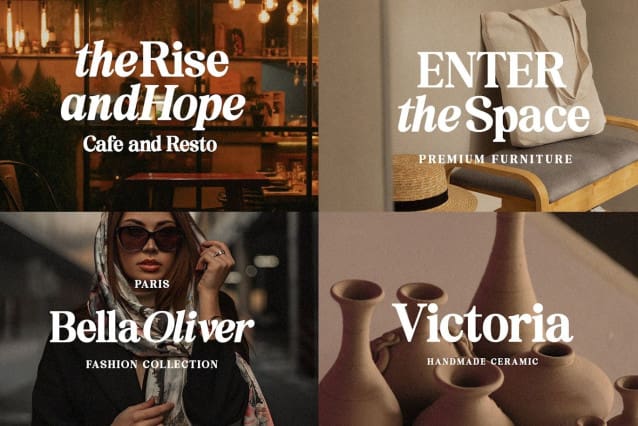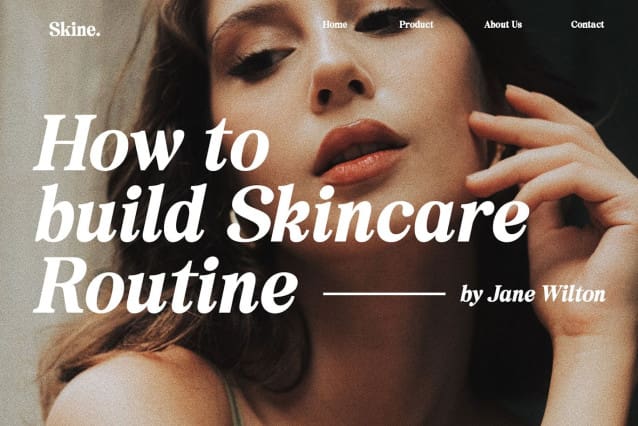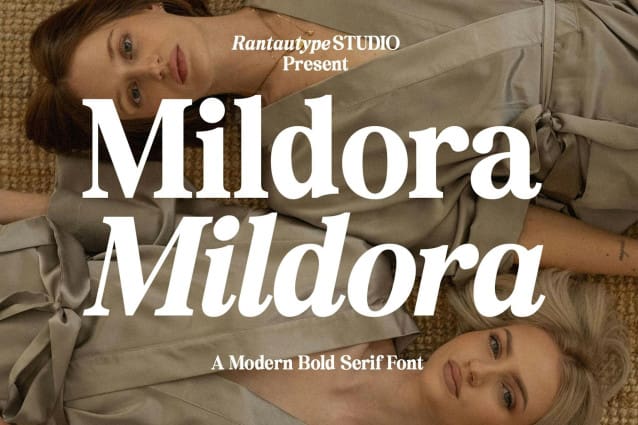
Mildora Font
Mildora Font is a display font with a single bold weight. It is inspired by the 70s vibe, both versions are available in two versions, one with more contrast and sharper, you can mix and match them to create a creative design project.
Mildora Font is a great choice for any creative endeavor, creating elegant, modern and chic lifestyle designs such as logotype, headline, cover, branding, invitations, wedding designs, displays and magazines, social media posts, advertisements, print quotes, product packaging, corporate branding, product designs, labels, photographs, watermarks, special events and any other projects with a nostalgic or elegant touch.